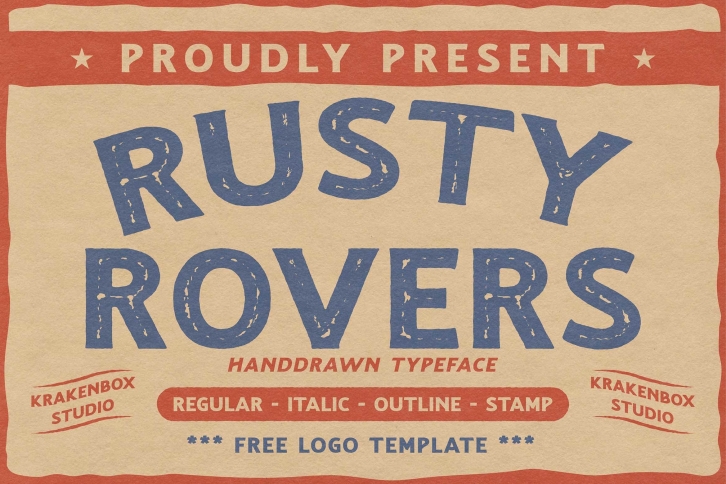
Rusty Rovers is a vintage-styled and gorgeous-looking display font. It is a great font for fashion, signature, album cover, logo, branding, magazine, social media, advertisements, but it also works great for other projects.